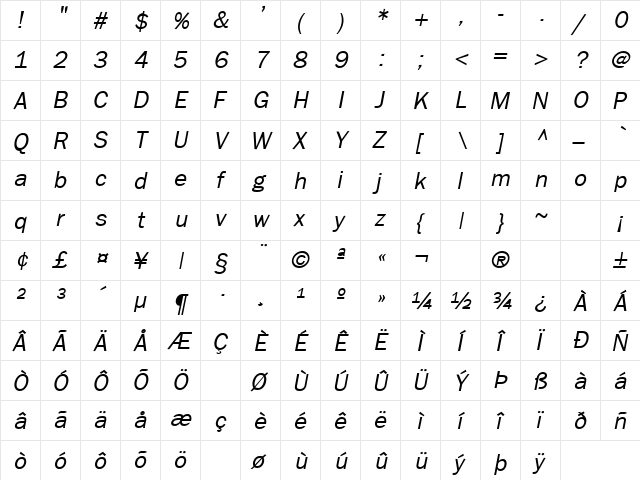
Moby Dick 11 Italic
Design Context for Moby Dick 11 Typeface
Moby Dick 11 offers clean, dependable letterforms without strong stylistic allegiance, making it a practical choice for designers who need flexibility. Its italic angle brings a sense of urgency and motion to the letterforms.
Pro Tip: Try Moby Dick 11 for annotation and caption copy alongside an upright companion — the contrast in angle creates a dynamic but ordered typographic system.